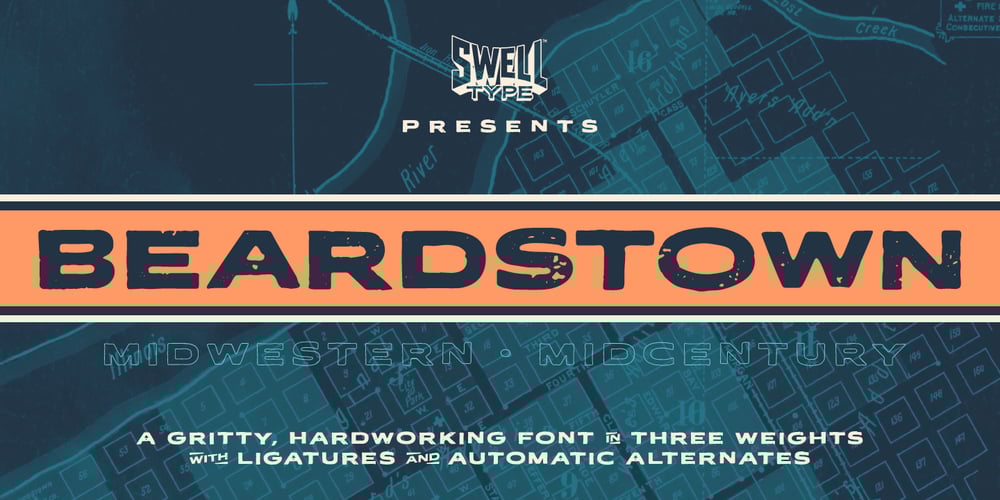
Beardstown
Beardstown font
Beardstown Font Family was designed by John Roshell and published by Swell Type. Beardstown contains 3 styles and family package options. Beardstown is solid, hardworking & no-nonsense. It may be a little gritty & rough around the edges, but it can also be open, warm and welcoming. Beardstown is a little Midwestern town on a river with a town square where you can buy comic books from a spinner rack at the front of the drugstore and read ’em with a root beer float from the soda counter in the back. The Beardstown font is perfect for t-shirts, sports graphics, beer cans, trading cards, carnival posters and record albums. But that’s it. I mean, you could use it on foofy hipster stuff like organic produce, vegan meat substitutes, electric car accessories or mountain bike parts, but you risk Beardstown coming over there to kick your butt. Features: three versions of each letter and two versions of each number automatically rotate for authentic print texture thirteen catchwords (like “and” “of” “for” & “the”) accessible in Discretionary Ligatures support for 223 languages including Western & Central Europe, Vietnamese & Cyrillic